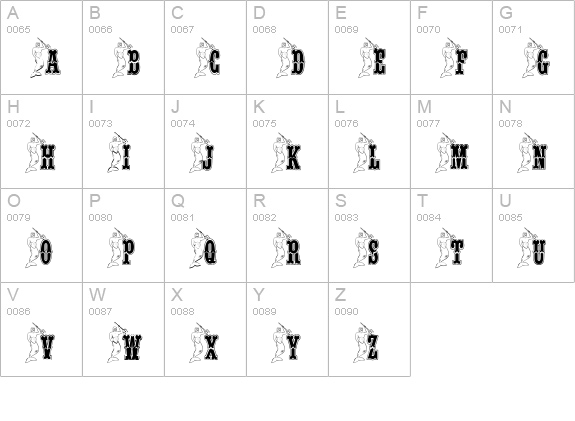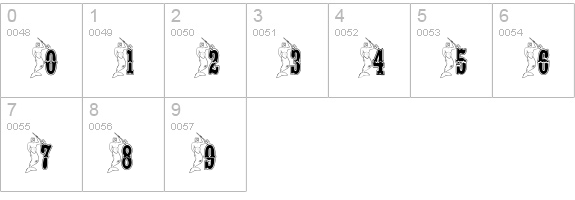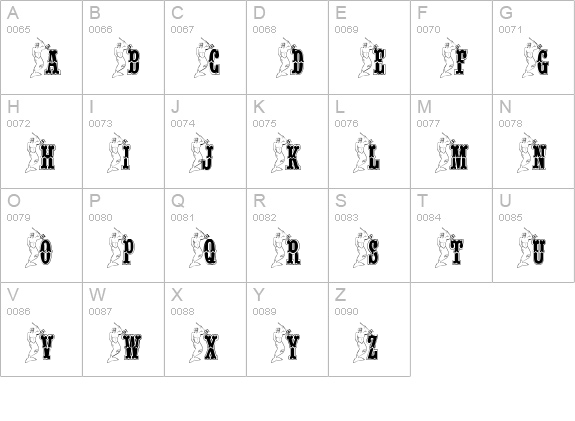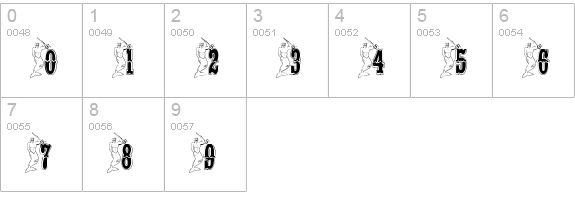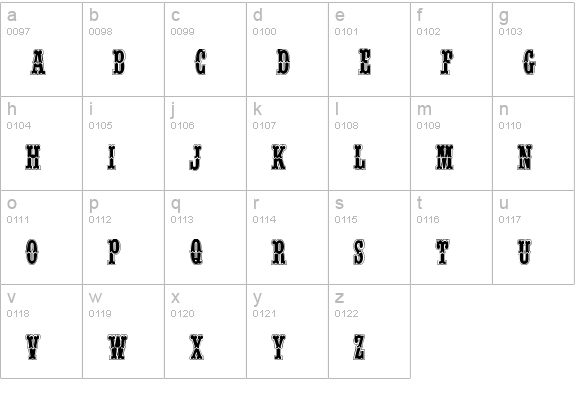
BJF Merman Font Details
The BJF Merman font is a whimsical and enchanting typeface that captures the essence of the mythical underwater world. With its flowing curves and intricate details, this font brings to mind the graceful movements of mermaids and mermen. Perfect for adding a touch of magic to your designs, the BJF Merman font is both charming and versatile. And the best part? This captivating font is available for free download at FontsMarket.com. Embrace the magic of the ocean with the BJF Merman font and let your creativity dive into new depths.